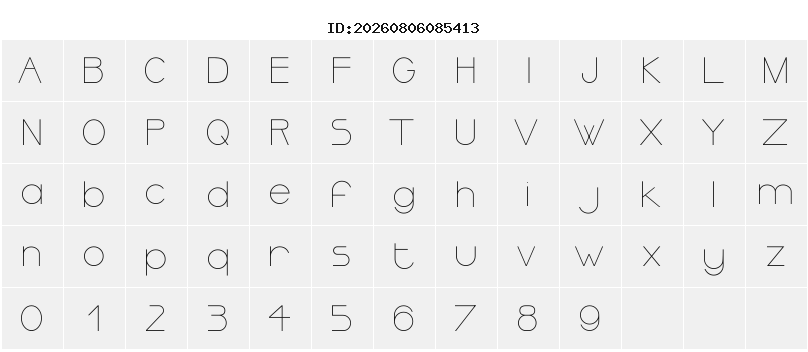
About Ormont.ttf
Ormont.ttf is a modern, elegant sans-serif font designed for ultimate readability and visual harmony. Perfect for branding, headlines, web design, and print materials.